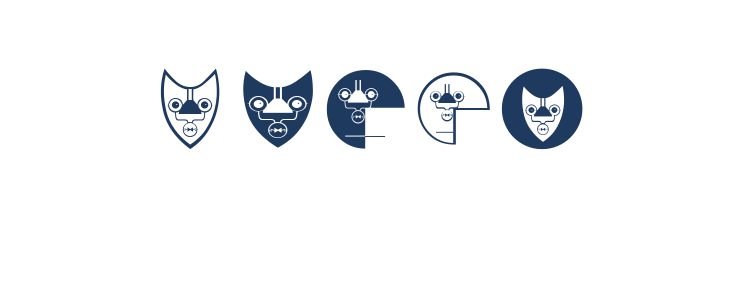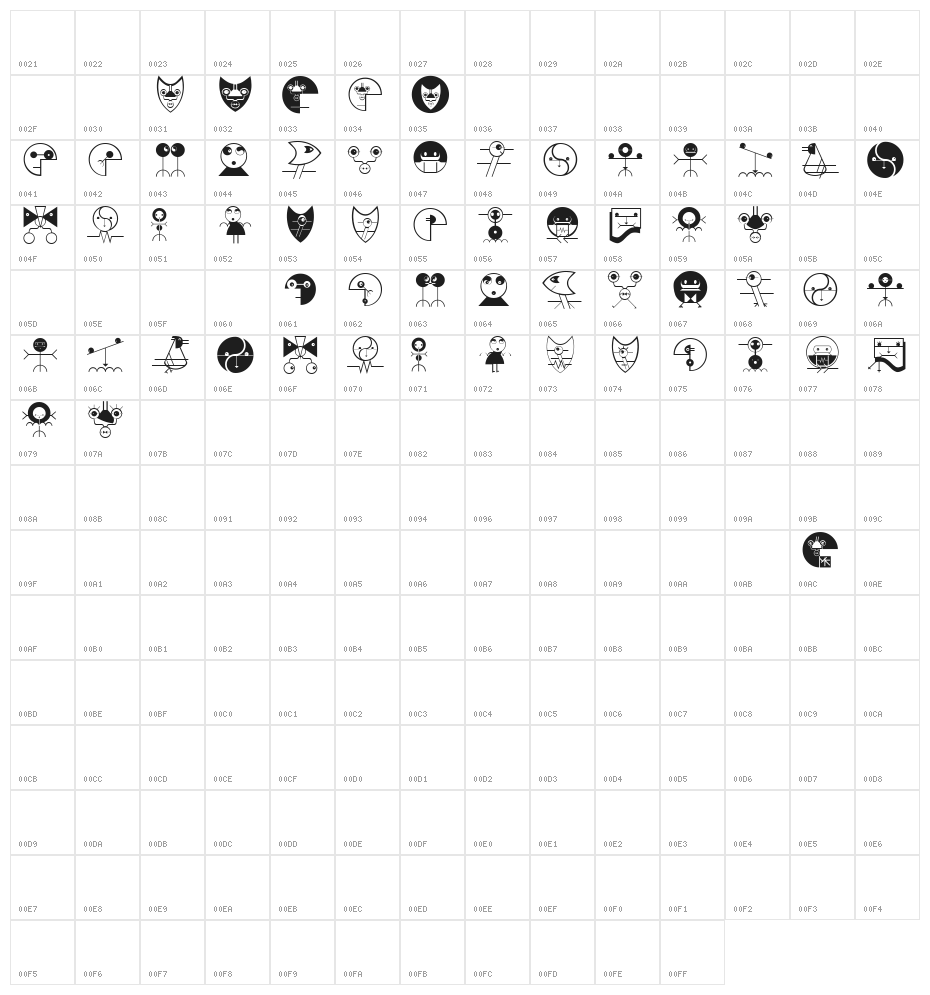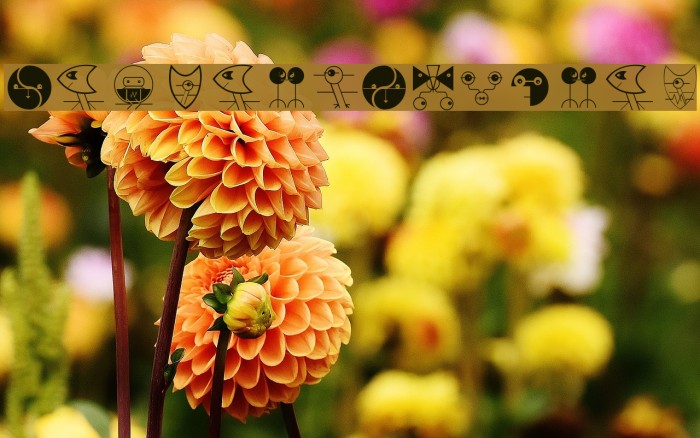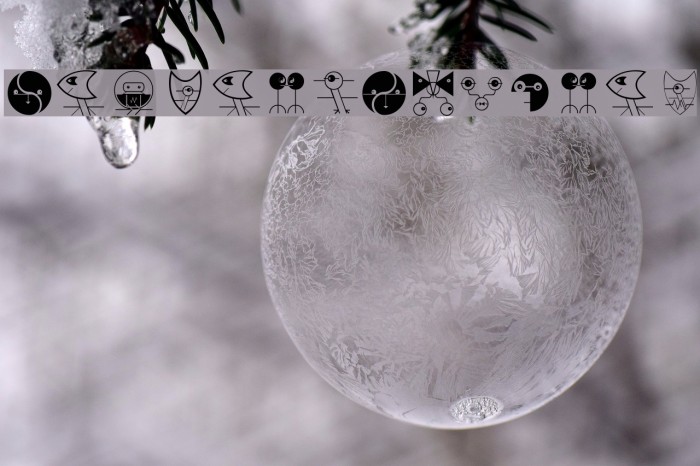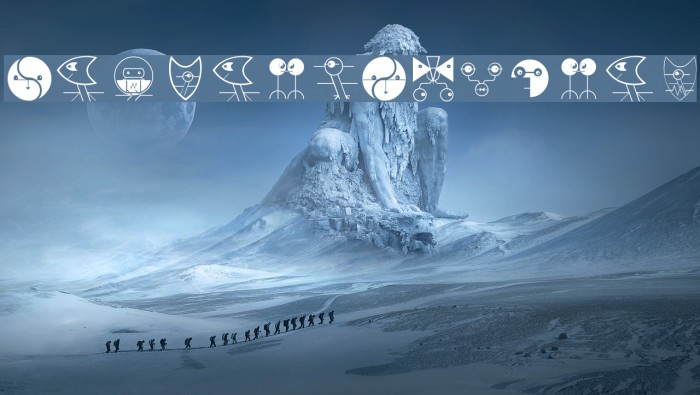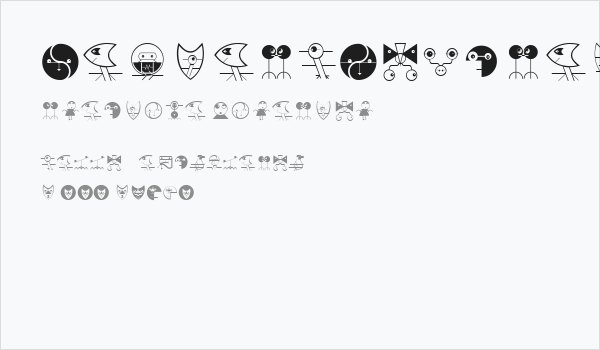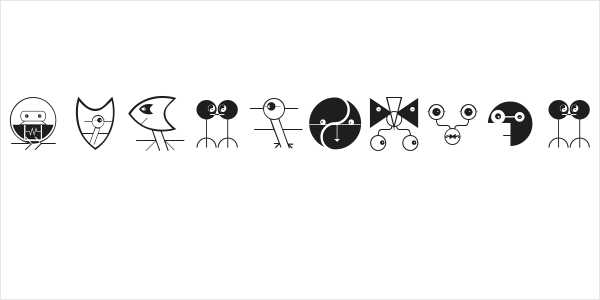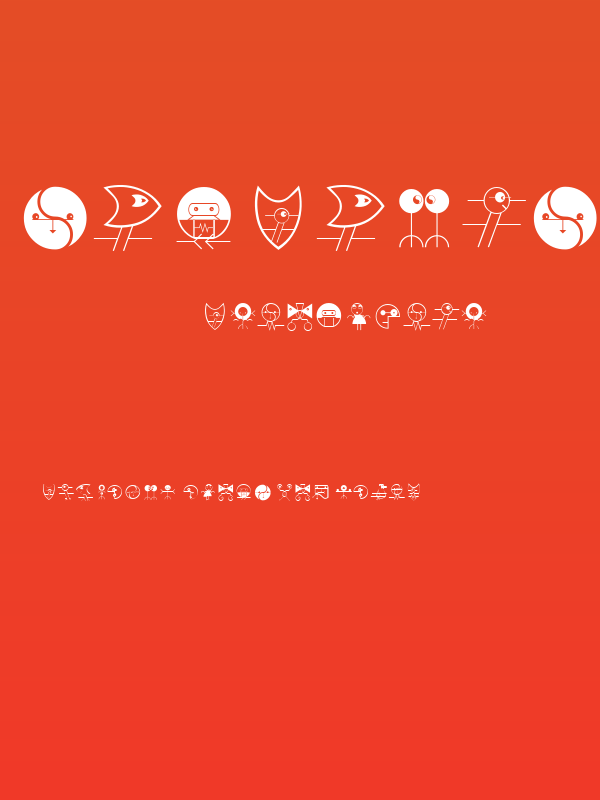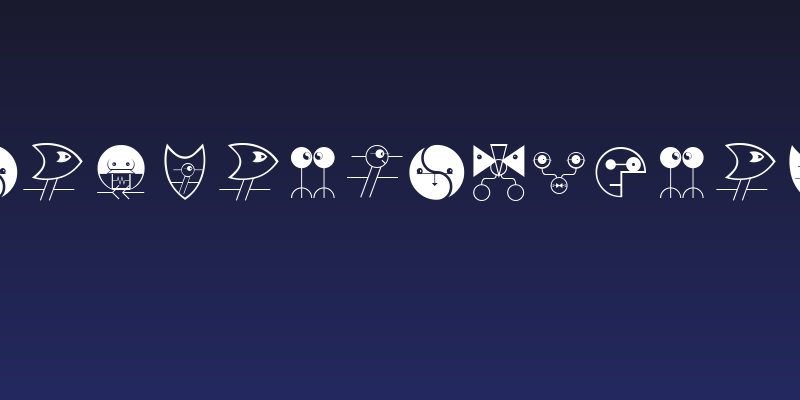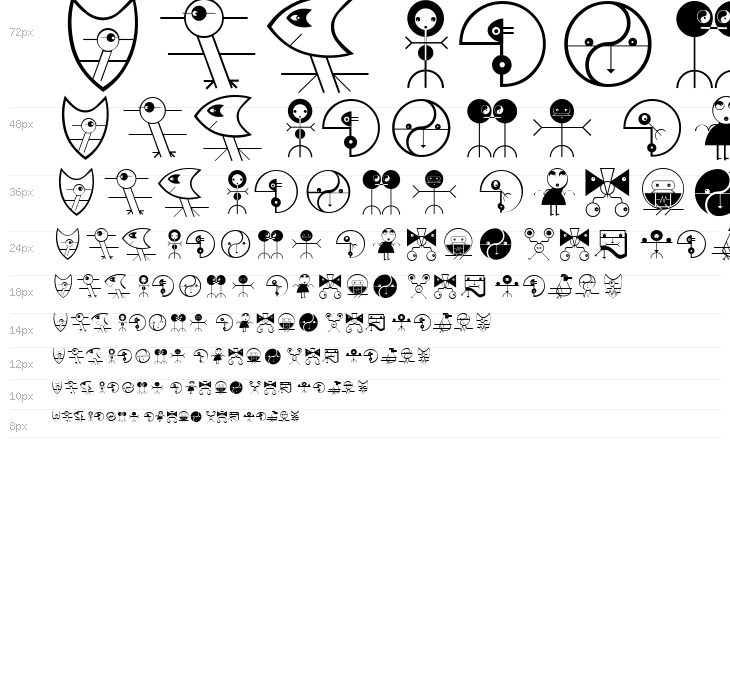
NewTechnoFaces Font
NewTechnoFaces Description
Highly decorative and abstract font where each character is represented by a unique, geometric, and whimsical face or figure, combining circles, lines, and playful shapes for a futuristic and artistic appearance.
| Overall Style | Decorative, Futuristic, Playful |
| Use Case | Logos, Posters, Art projects, Headlines |
| Proposed Projects | ChildrenΓ’β¬β’s books, creative posters, album covers, experimental branding, art installations. |